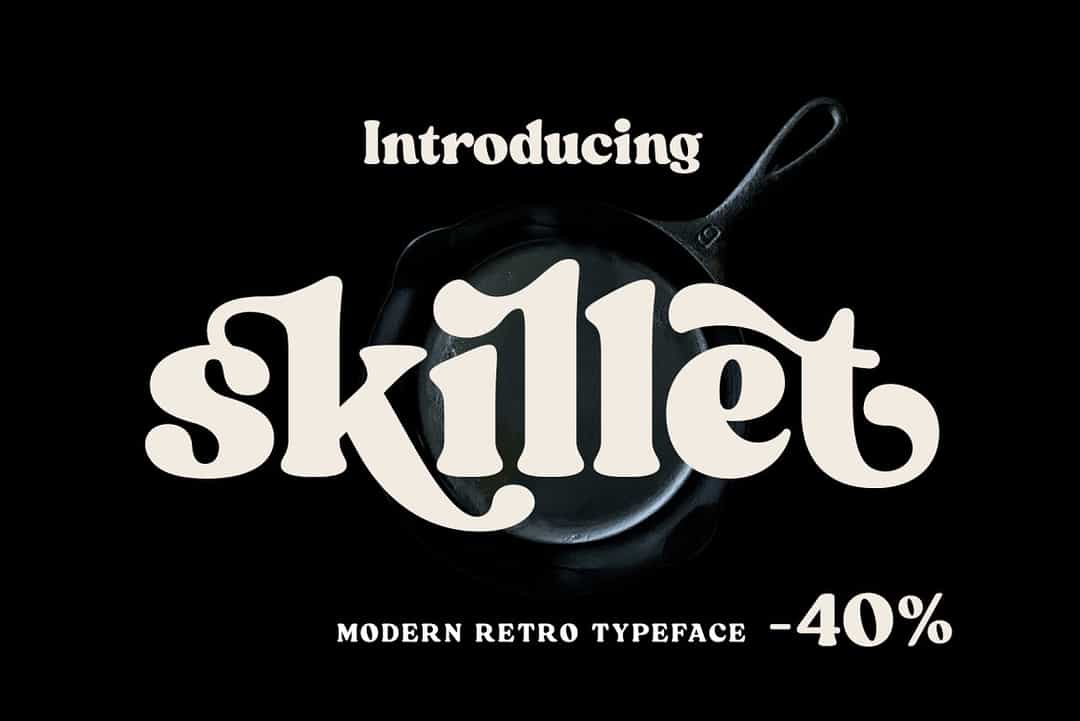
Skillet Font is an eye-catching retro style serif font full of joy and hedonism, radiating retro style serif charm with every stroke of its serifs. Skillet is a strong character with exceptionally smooth features who exudes an inner confidence that radiates out. Available in both Condensed and Regular weights; both give off an intimate vibe when used within spaces that may otherwise feel too vast for them both to fill properly.